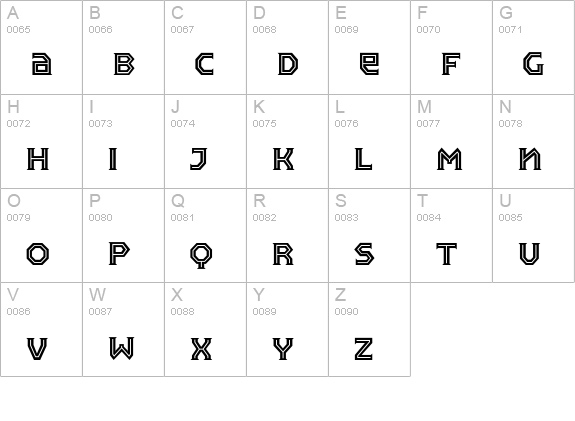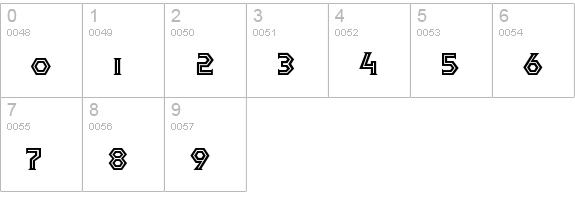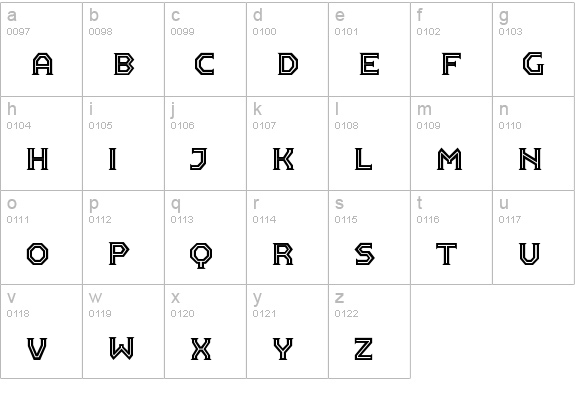
Pullman-Inline Font Details
The Pullman-Inline font is a beautifully designed typeface that exudes elegance and sophistication. Its sleek and modern inline style adds a touch of flair to any project, making it perfect for both print and digital applications. The clean lines and sharp angles of this font make it stand out, while still maintaining a sense of professionalism. What's even better is that the Pullman-Inline font is completely free to download at FontsMarket.com. This means you can enhance your designs with this stunning font without having to worry about any additional costs. Whether you're working on a branding project, a website design, or a creative piece of artwork, the Pullman-Inline font is sure to make a lasting impression. Don't miss out on the opportunity to elevate your designs with the Pullman-Inline font. Download it for free today and take your projects to the next level!